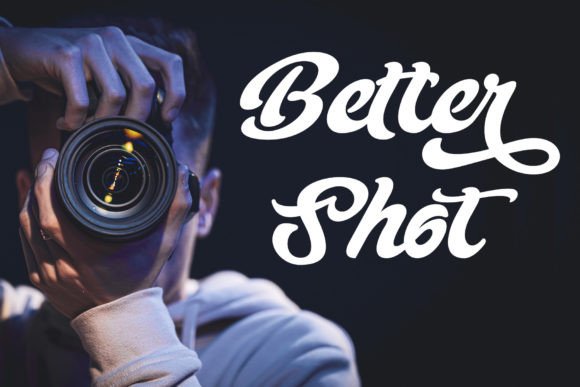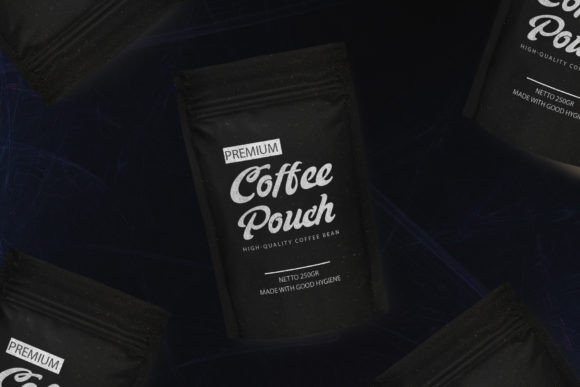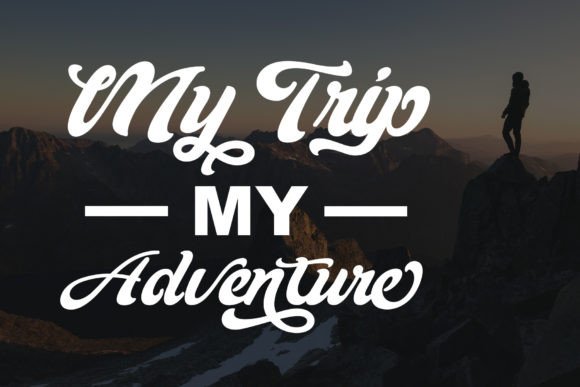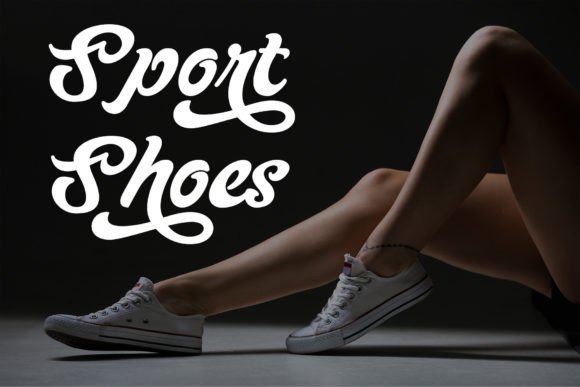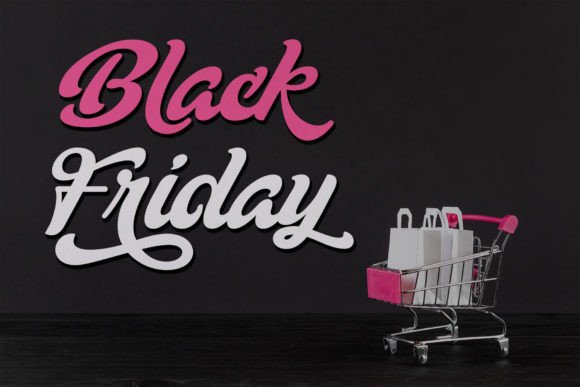
The Designer’s Delight: Uncovering the Charm of Blacker Script Font
I still remember the design project that led me to discover Blacker Script Font. I was working on a branding project for a trendy coffee shop, and I was struggling to find the perfect font to capture their laid-back yet sophisticated vibe. That’s when I stumbled upon Blacker Script, and it instantly became my go-to choice. Its modern bold script style and casual charm made it a perfect fit for the project, and I’ve been hooked ever since.
• ✅ Versatility: Blacker Script Font is incredibly versatile and can be used in a variety of contexts, from busy backgrounds to standalone headlines.
• ✅ Readability: Despite its bold style, the font remains surprisingly readable, making it perfect for both digital and print applications.
• ✅ PUA Encoding: The font is PUA encoded, which means you can easily access all the glyphs and swashes to take your designs to the next level.
• ✅ Modern and Fresh: Blacker Script has a distinctly modern feel that will make your designs stand out from the crowd.
• ⚠️ Occasional Kerning Issues: As with any script font, you may encounter some kerning issues, especially when using it in combination with other fonts.
• ⚠️ Not Suitable for Body Text: Due to its bold style, Blacker Script Font is best used for headlines and titles rather than body text.
The Story Behind Blacker Script Font: Designer Inspiration
Blacker Script Font was carefully handcrafted by a talented designer who wanted to create a modern bold script font that would become a true favorite among designers. The designer’s inspiration came from a passion for elegant typography and a desire to create a font that would be both versatile and beautiful. While the designer’s identity remains a mystery, their creation has certainly made a lasting impact on the design community.
Font Name Blacker Script Font
Author thomasaradea
A: PUA (Private Use Area) encoding allows font users to access a wide range of glyphs and swashes, making it easier to create unique and creative designs.
Q: Is Blacker Script Font suitable for body text?
A: No, Blacker Script Font is best used for headlines and titles rather than body text, due to its bold style.